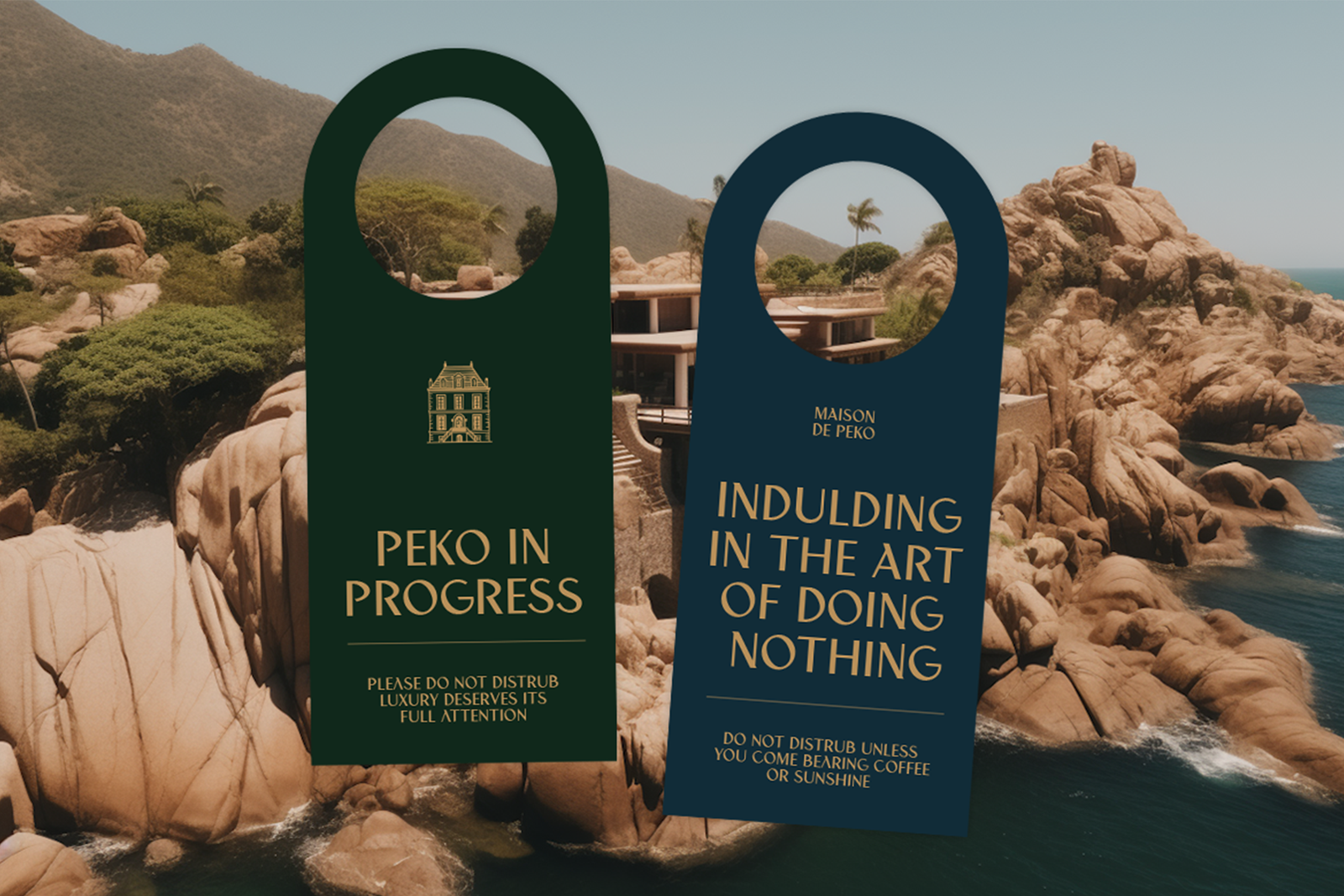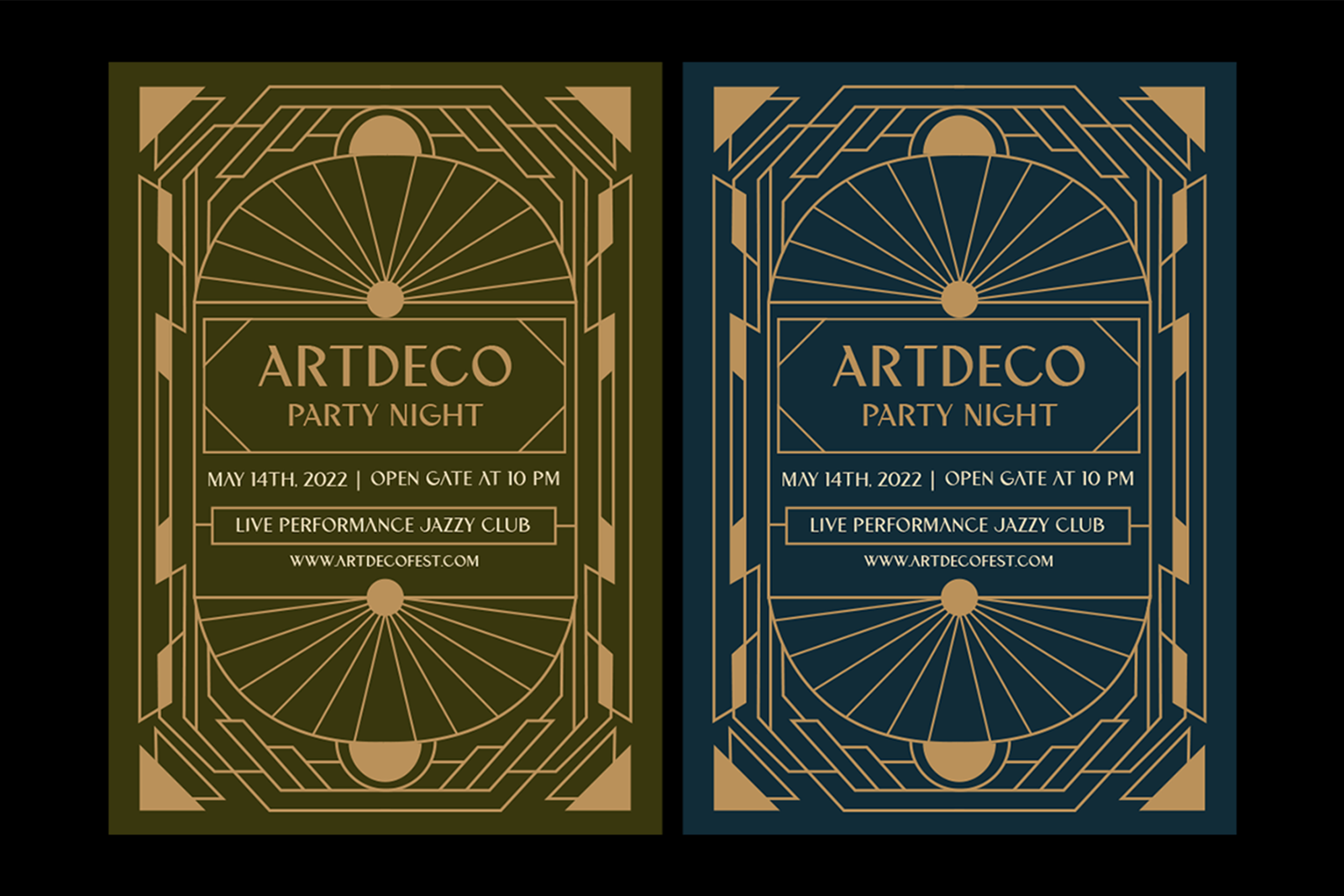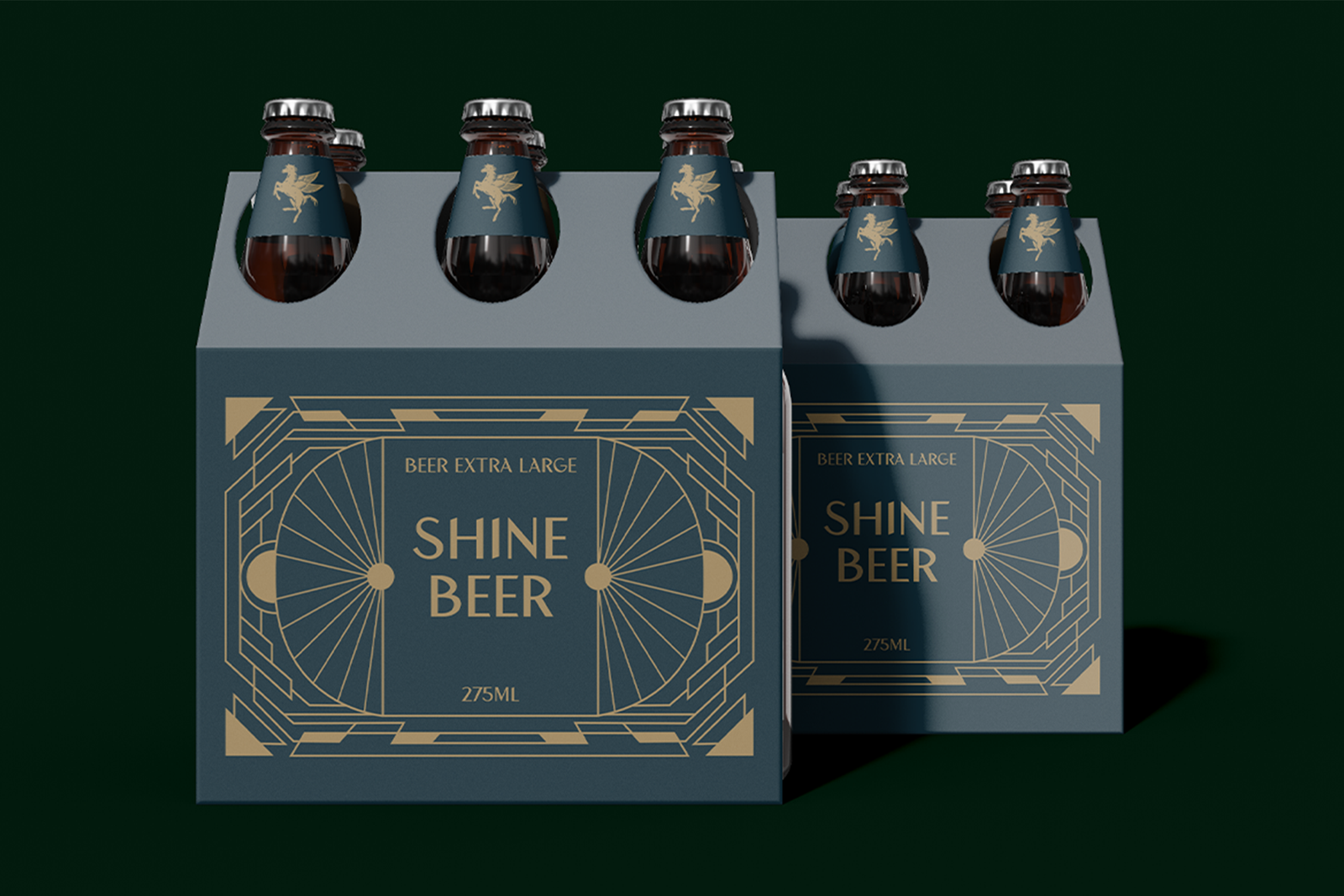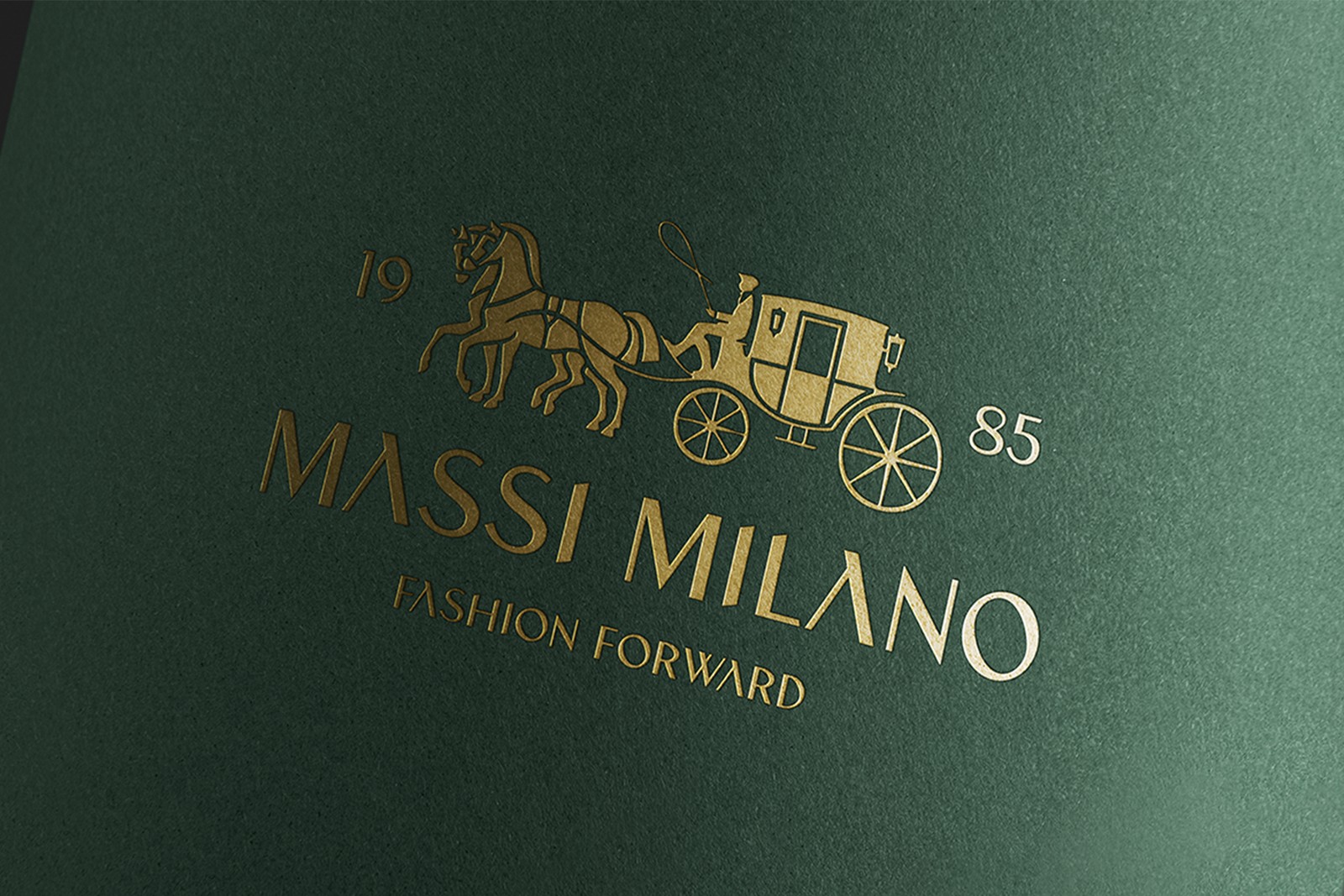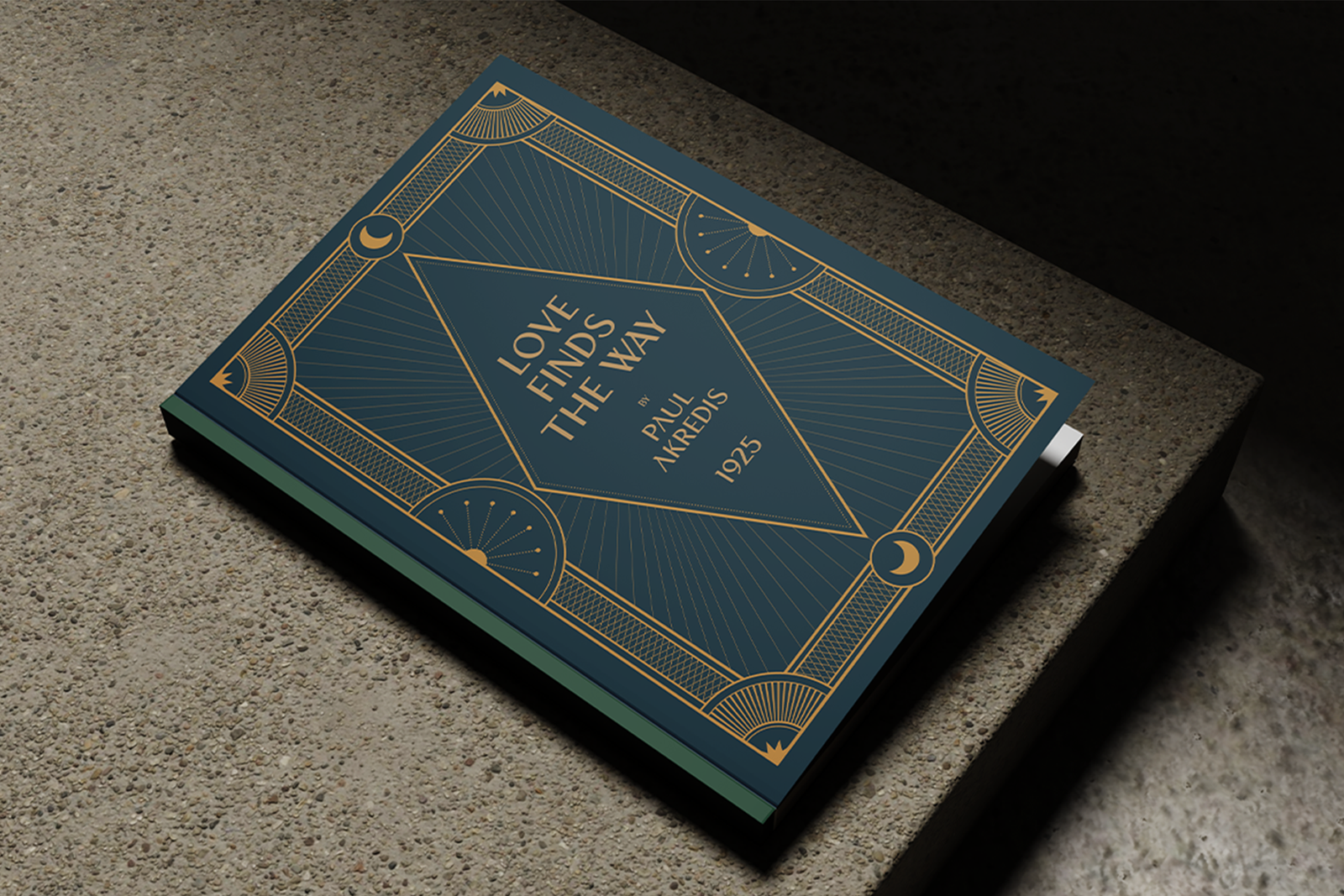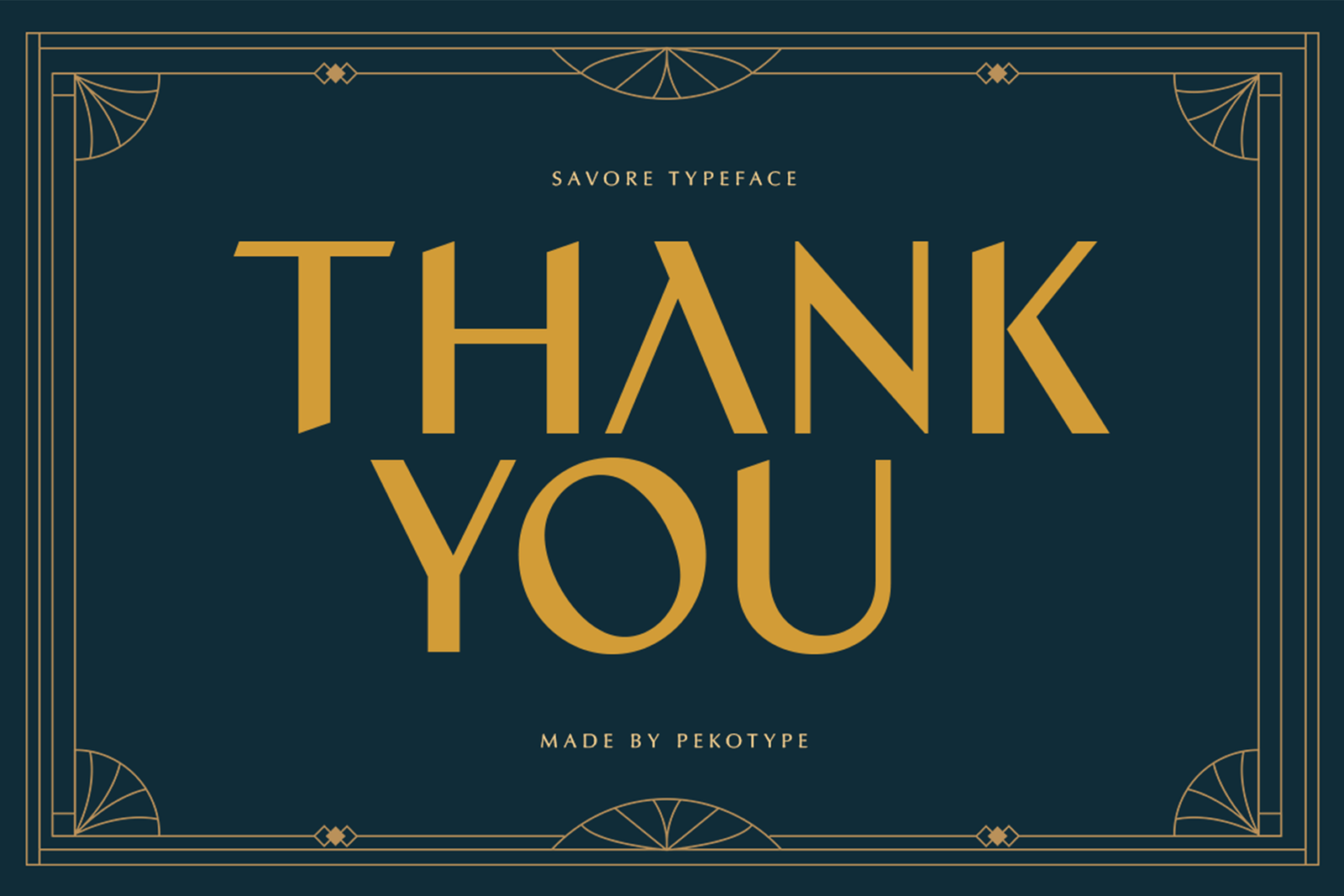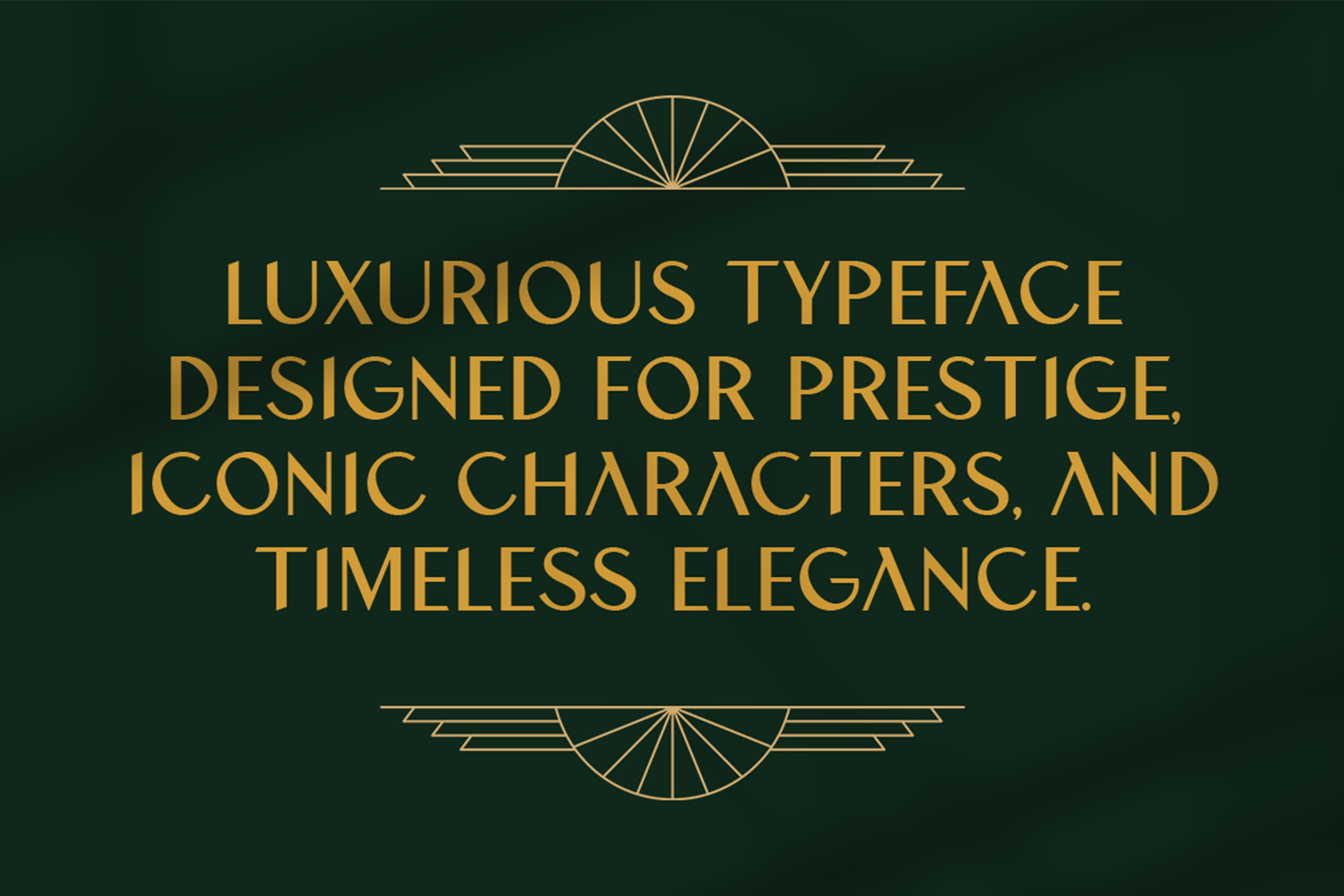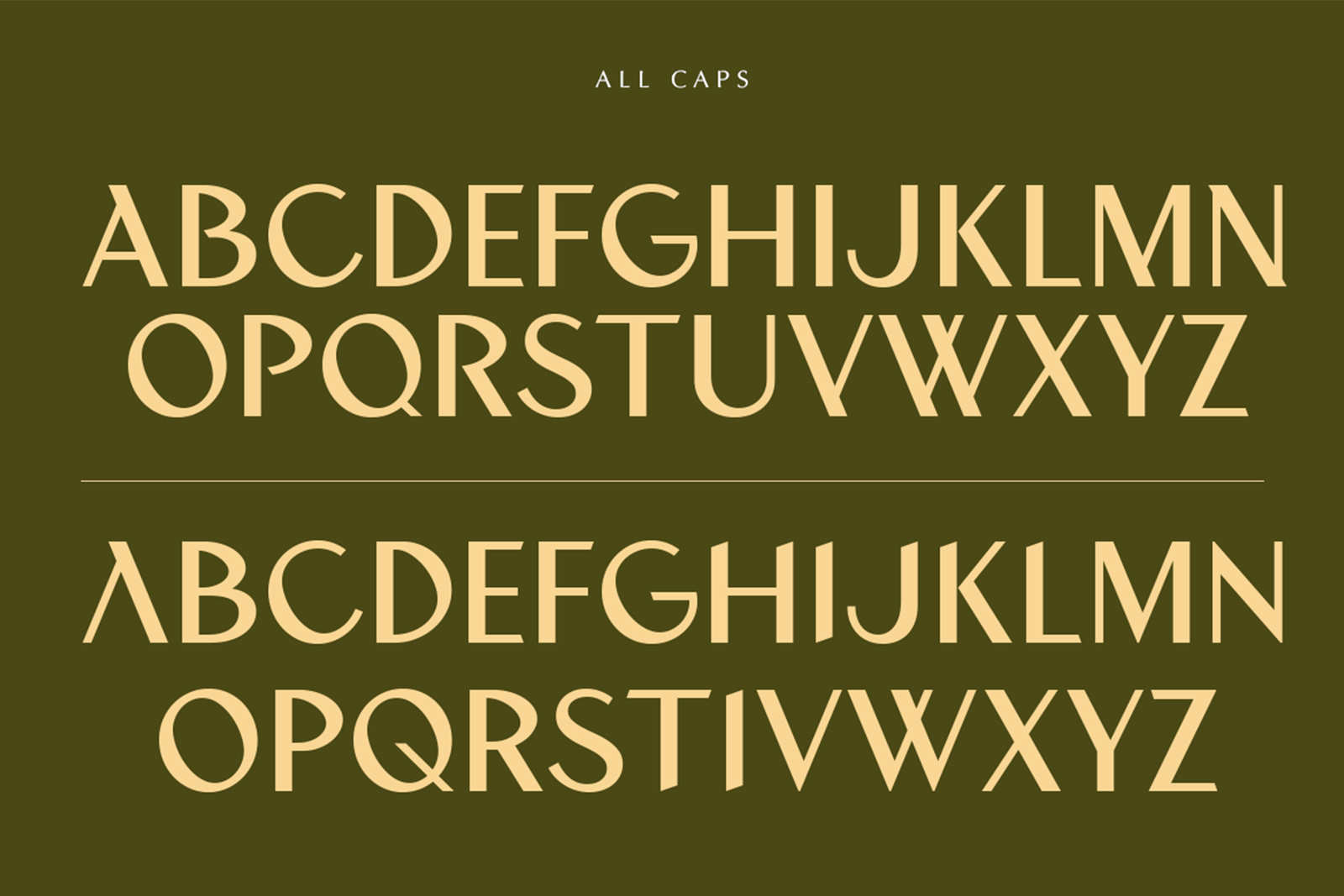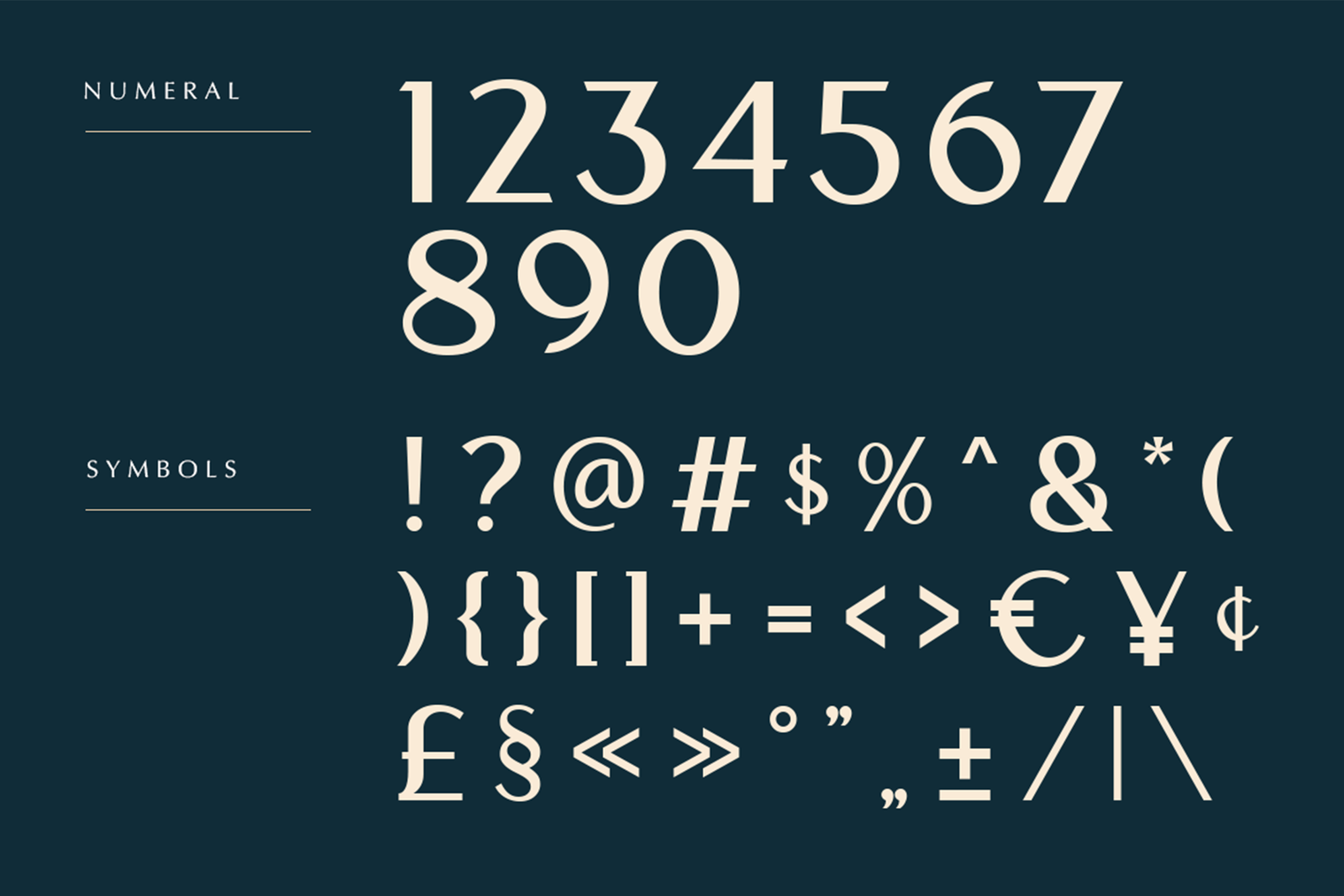
SAVORE Font – Luxury Art Deco Display Typeface
SAVORE Font is a modern luxury display typeface inspired by the timeless elegance of Art Deco design. Its clean geometric shapes, refined details, and slightly decorative letterforms create a premium look that feels classy, stylish, and memorable. The strong structure gives every word a confident presence while keeping the overall appearance balanced and easy to read.This font works beautifully for luxury branding, fashion labels, hotel identities, perfume packaging, wedding invitations, product labels, logo design, editorial layouts, and premium social media content. It is also suitable for elegant signage, boutique branding, packaging, and sophisticated promotional graphics. Whether you are creating a high-end brand identity, an exclusive product, or a stylish campaign, SAVORE Font adds a polished and timeless character to your design.The typeface includes all caps characters, numbers, symbols, punctuation, and multilingual support for flexible creative use. It is suitable for both digital and print projects, including logos, headlines, packaging, posters, and brand materials. SAVORE Font is a strong choice for designers who want luxurious typography with a modern Art Deco personality. Its bold appearance also makes short headlines, brand names, and promotional messages stand out clearly across layouts, screens, and creative applications, while adding a strong recognizable identity.
Features:- All Caps
- Number, Symbol, & Punctuation
- Multilingual